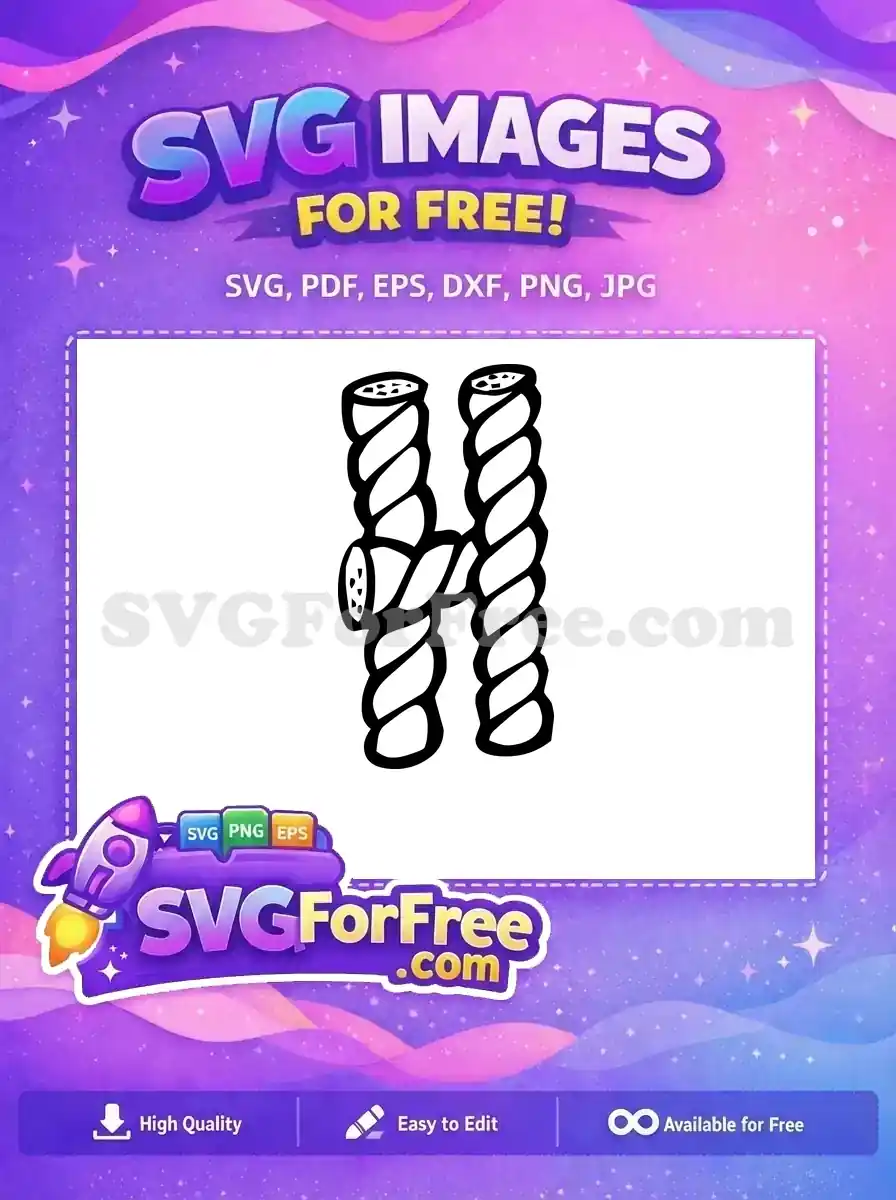
Free Letter H Font Free Twisted Rope Style Free SVG – Instant Download
Rope-based letter H with detailed fiber texture, a free graphic for creative projects.
Free Letter H Font Free Twisted Rope Style Free SVG